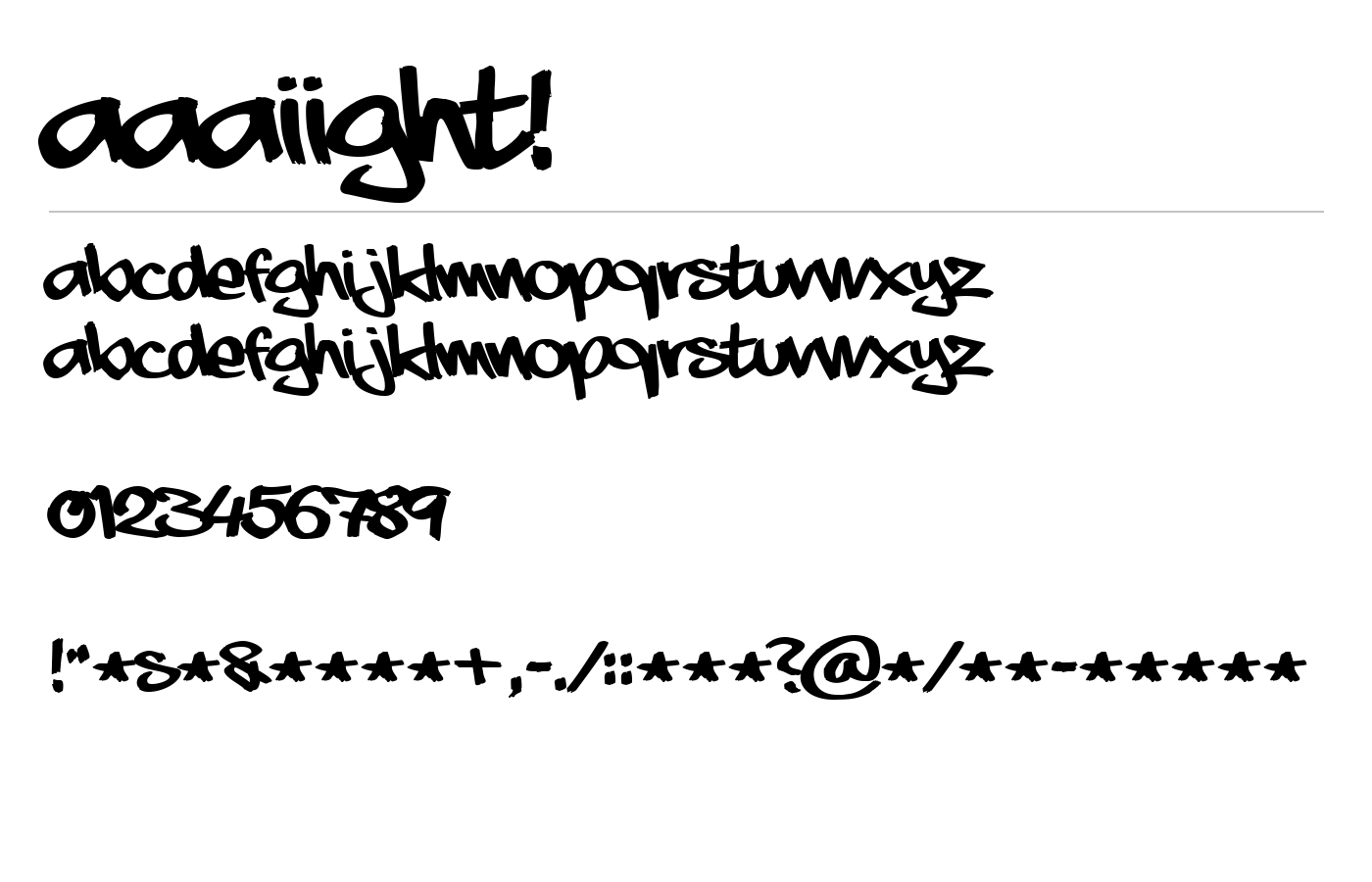
The aaaiight! font is a bold, handwritten script with an energetic, casual vibe, featuring thick strokes and playful, irregular letterforms that mimic natural brush or marker writing. Its informal style and lively personality make it ideal for creative projects, youth-oriented branding, and fun, eye-catching headlines where a relaxed and approachable look is desired.
aaaiight! Font
About aaaiight! Font
| Designer | JOHAN WIDEGREN |